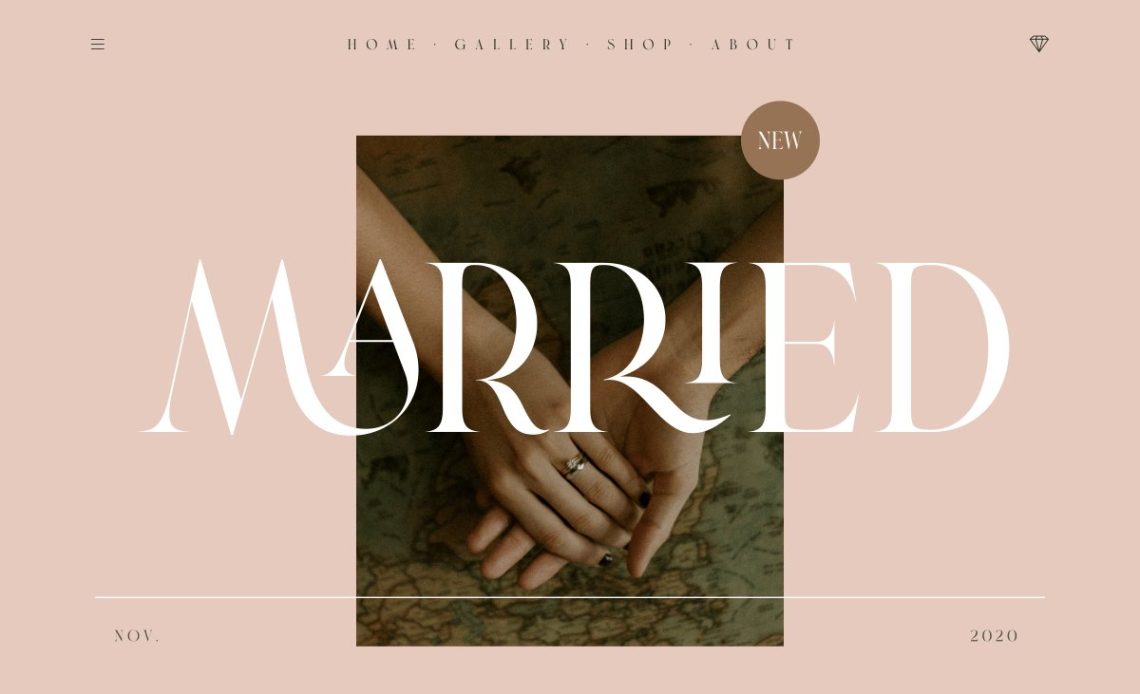
Introducing Brand - the lovely and elegant font that will take your branding and logo design to the next level. Created by Muhammad Zamroni Hamzah, this font is perfect for those looking for a unique style with an elegant shape.
As a graphic designer, Muhammad Zamroni Hamzah knows what it takes to create a classy and unique logo. With Brand, you can create logos that are not only unique but also elegant, giving your brand the professional look it deserves.
This font comes with a full set of uppercase letters, multilingual characters, numerals, punctuation, and ligatures collection. The ligatures collection is a unique feature that allows you to combine different letters to create a truly unique design. All ligature characters can be accessed using lowercase type. The documentation in PDF provides a guide on how to use the font effectively.